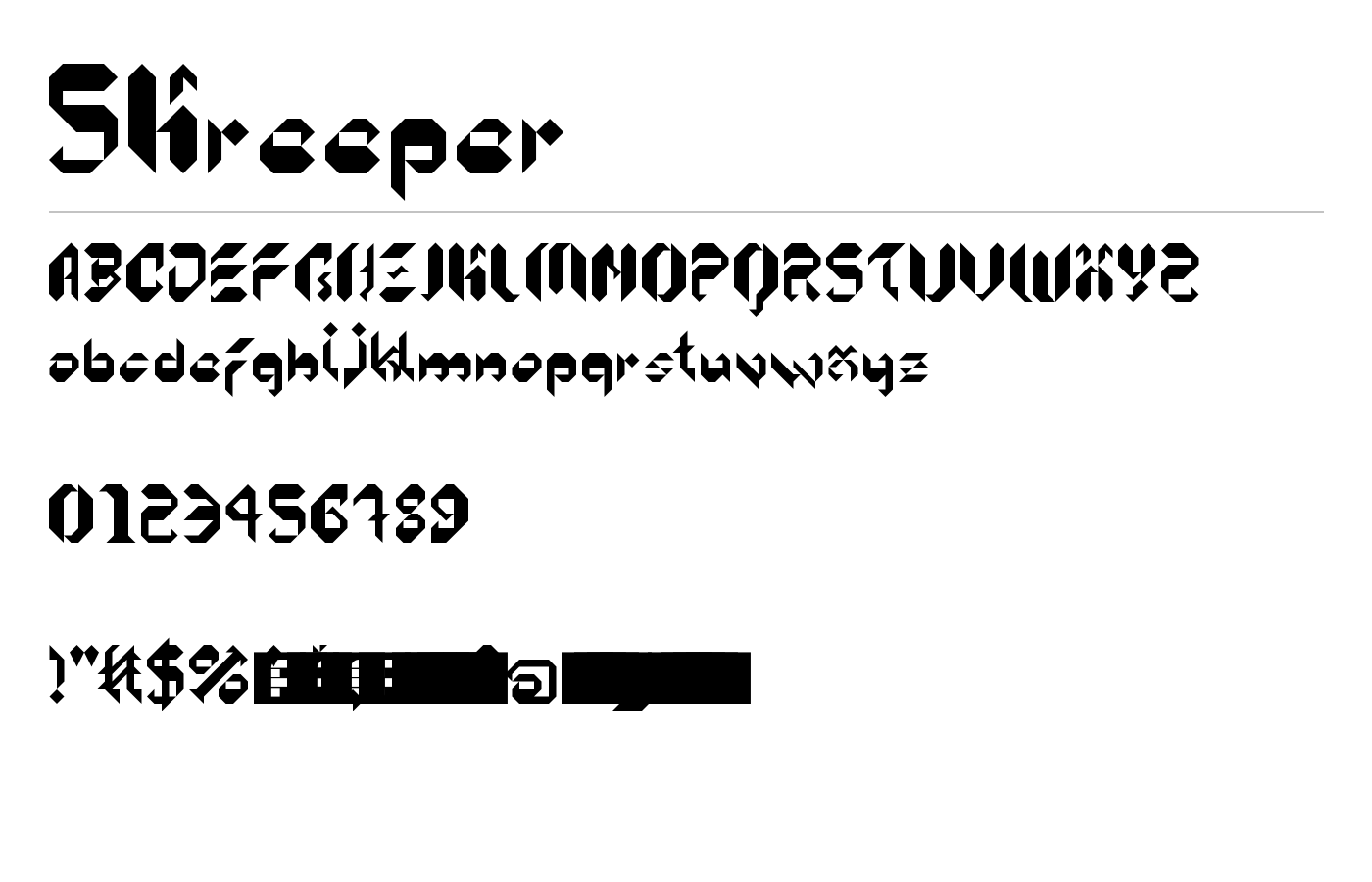
5Kreeper is a bold, angular sans serif font characterized by its geometric, blocky letterforms with sharp edges and a distinctive, futuristic style. Its strong, compact shapes give it a modern, tech-inspired personality that works well for eye-catching headlines, logos, and branding in gaming, sci-fi, or digital-themed projects. This font's unique, edgy appearance makes it perfect for creative uses where standing out and conveying an innovative vibe is key.
5Kreeper Font
About 5Kreeper Font
| Font family | 5Kreeper Font |
| Designer | Noah - 11 year old typomaniac |